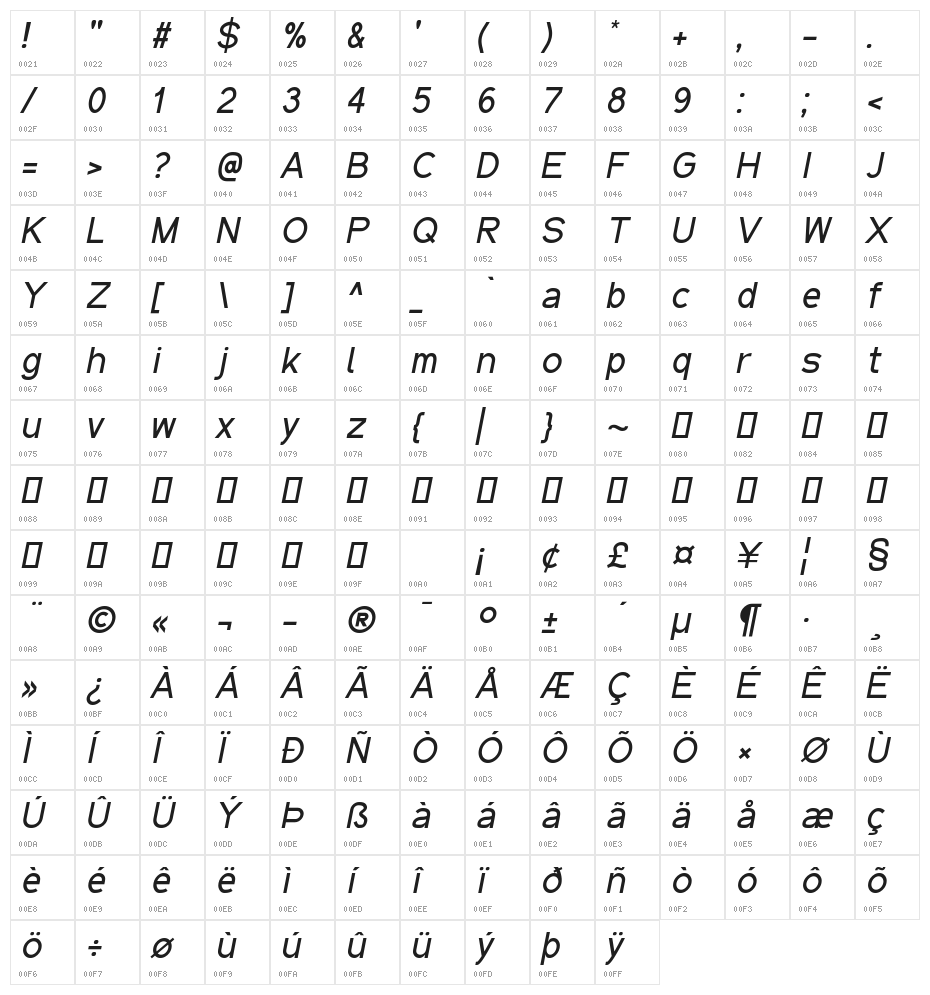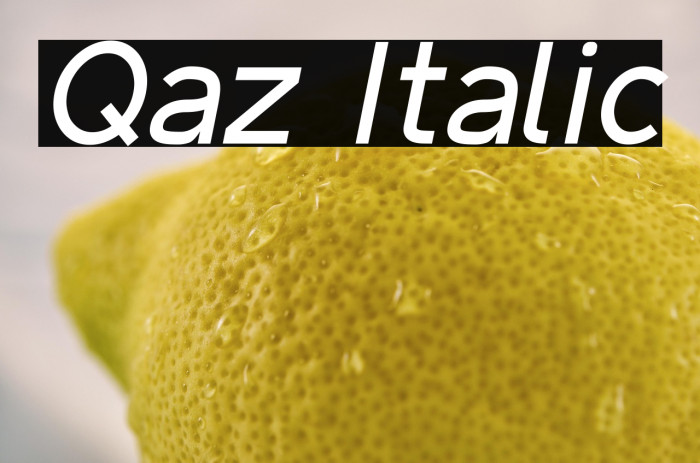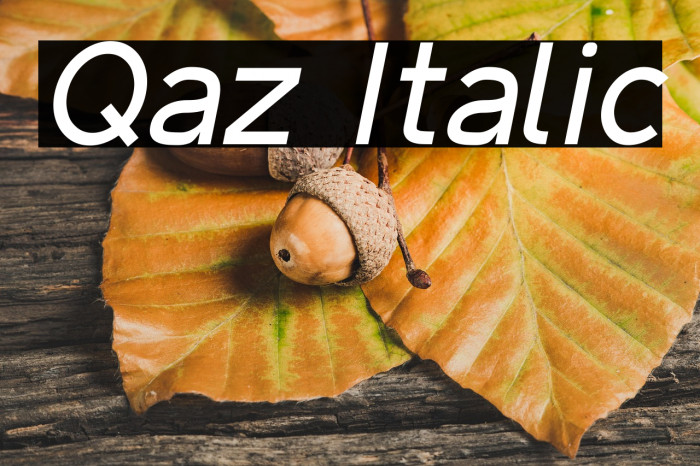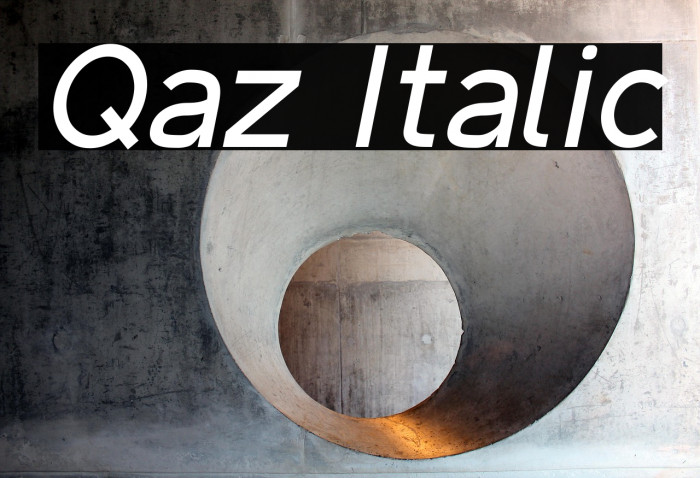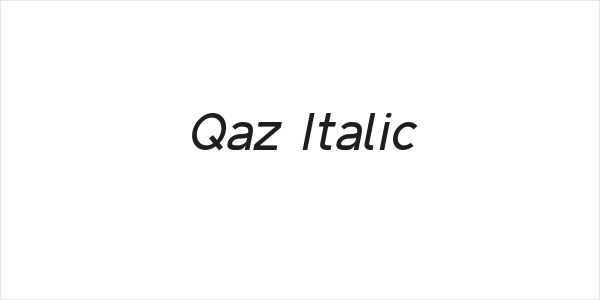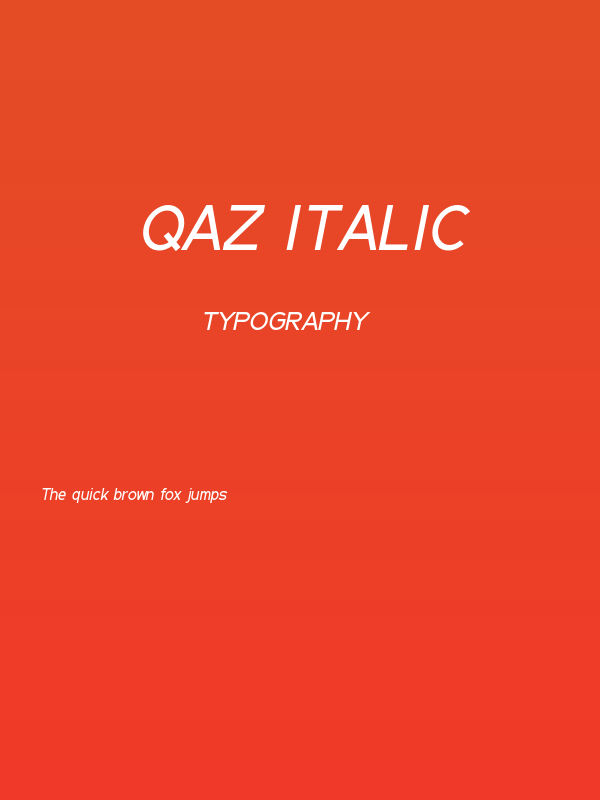
Qaz Italic Font
Qaz Italic Description
This font features a sleek, italicized design with smooth, flowing lines that give it a modern and dynamic appearance. The characters are slightly slanted, enhancing the sense of motion and elegance. The uppercase and lowercase letters maintain a consistent style, with rounded edges and a balanced proportion. The numerals and special characters are designed to complement the letters, ensuring readability and aesthetic harmony. The overall look is clean and professional, making it suitable for a variety of applications.